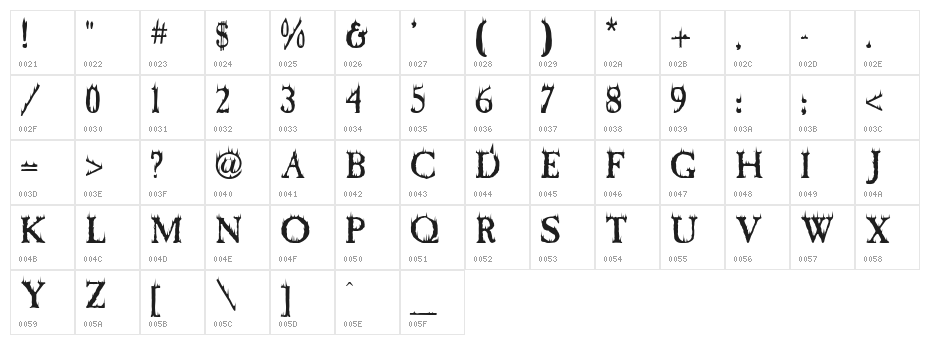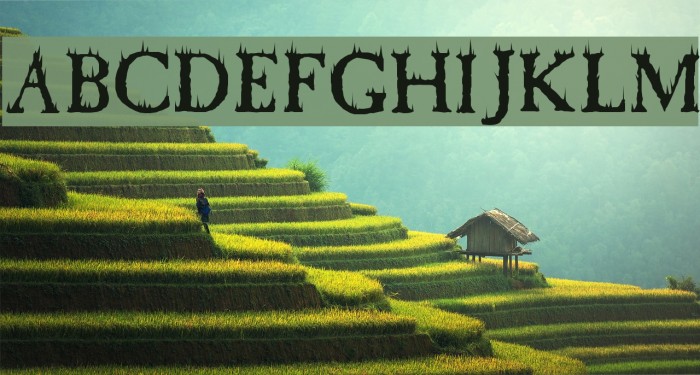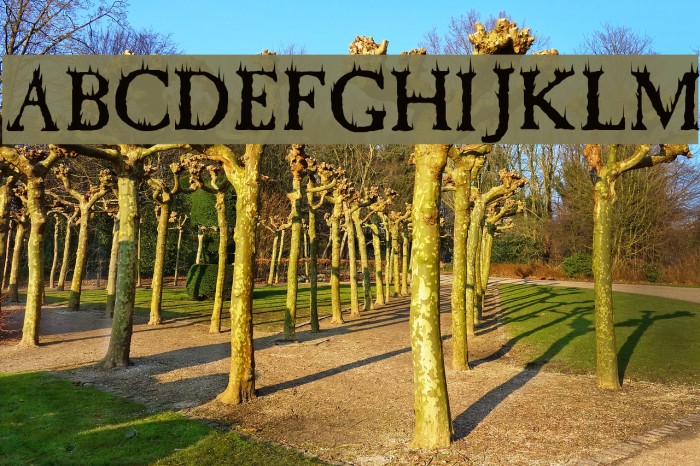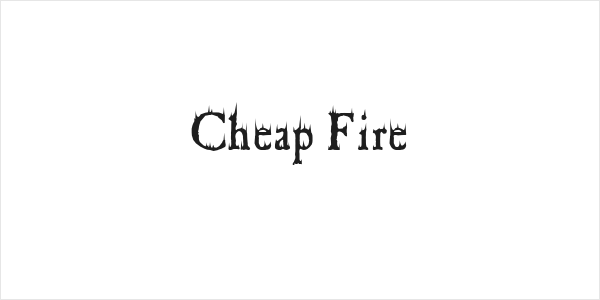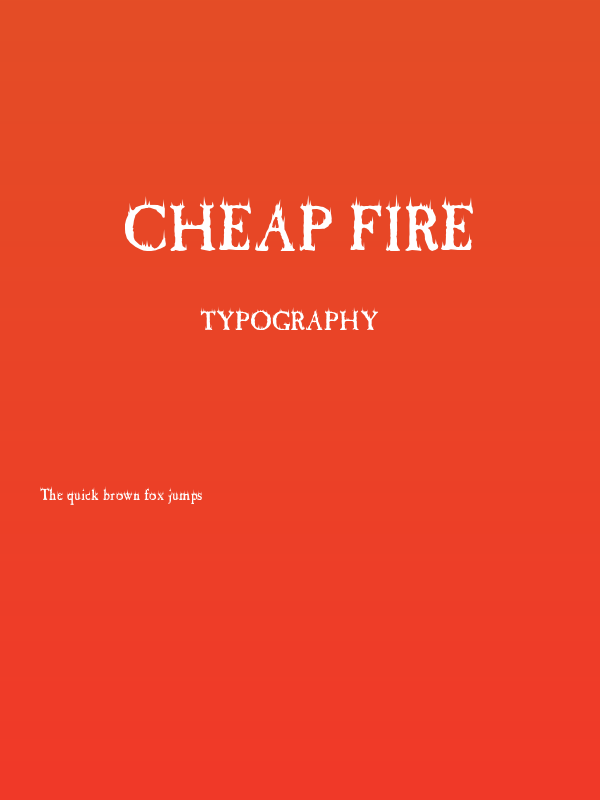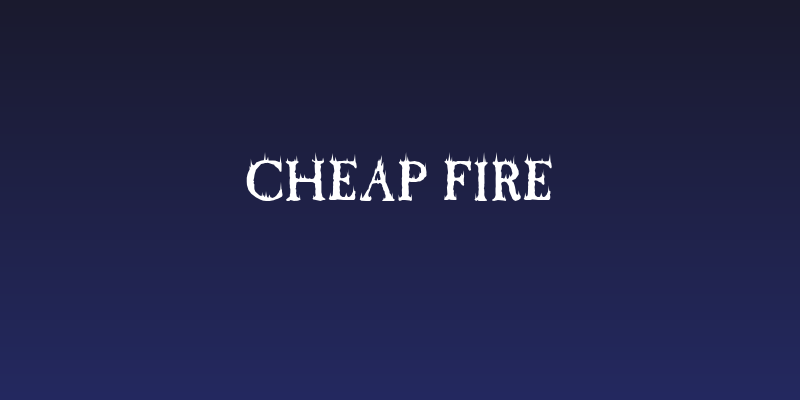
Cheap Fire Font
Cheap Fire Description
This font features a dynamic and fiery design, with each character appearing to be engulfed in flames. The edges are jagged and irregular, giving a sense of movement and intensity. The uppercase and lowercase letters maintain a consistent style, with sharp, pointed elements that mimic the flickering of flames. The numerals and special characters are equally dramatic, ensuring a cohesive look across all text. This font is ideal for creating eye-catching designs that require a bold and energetic aesthetic.